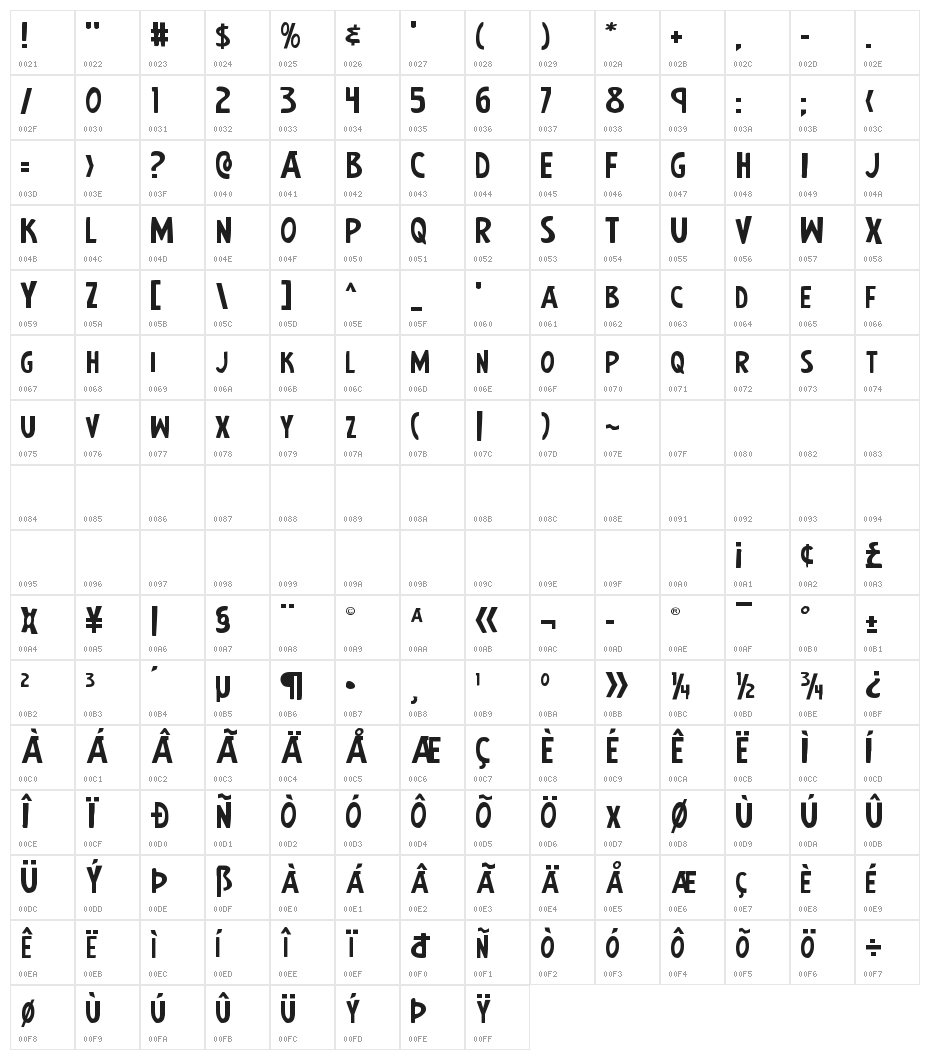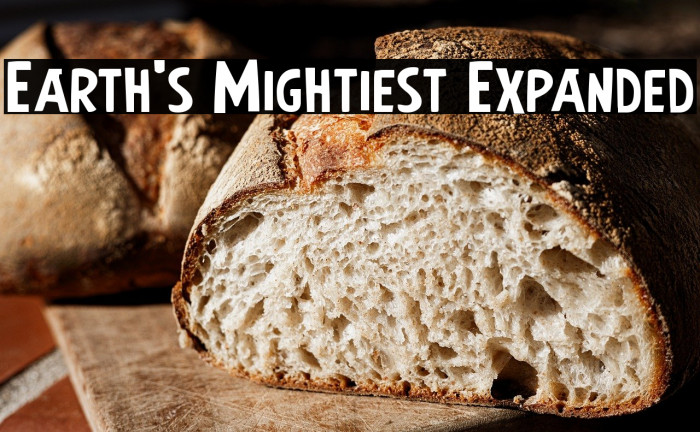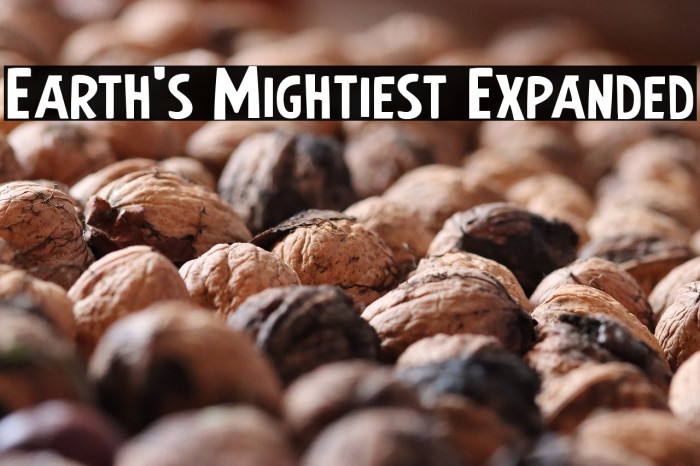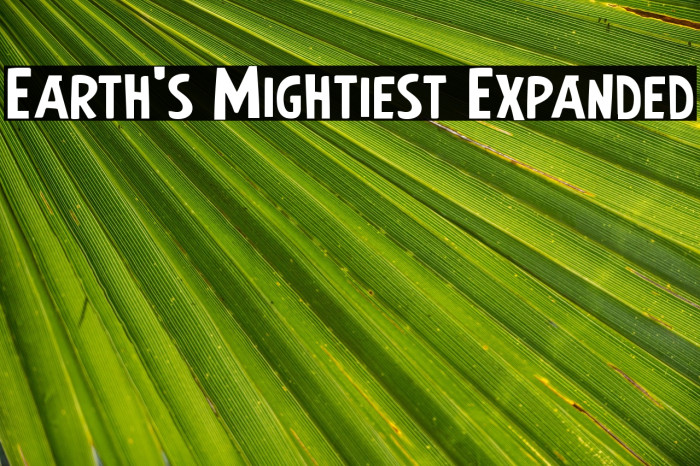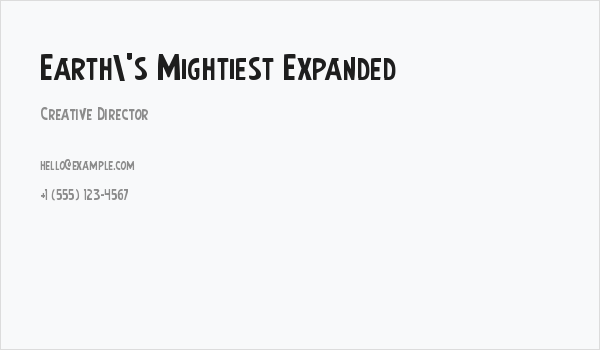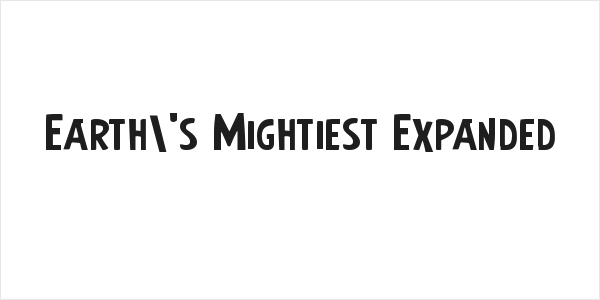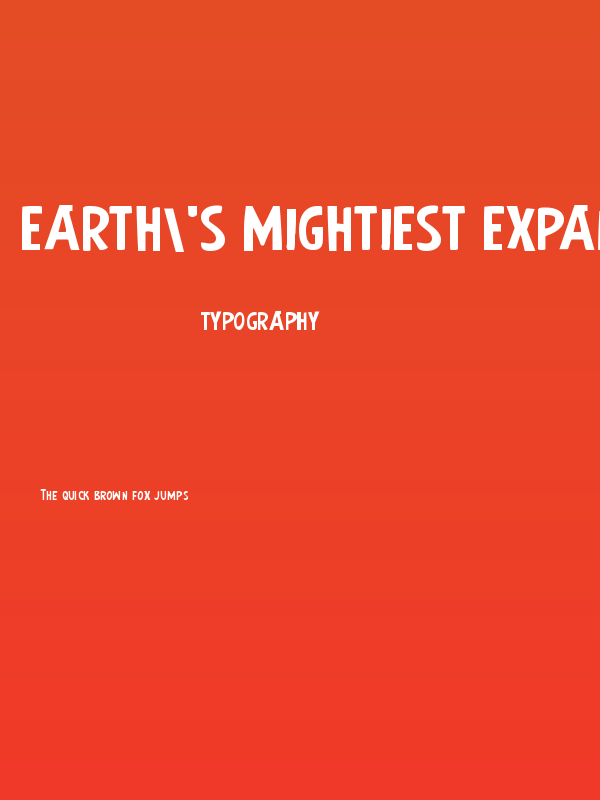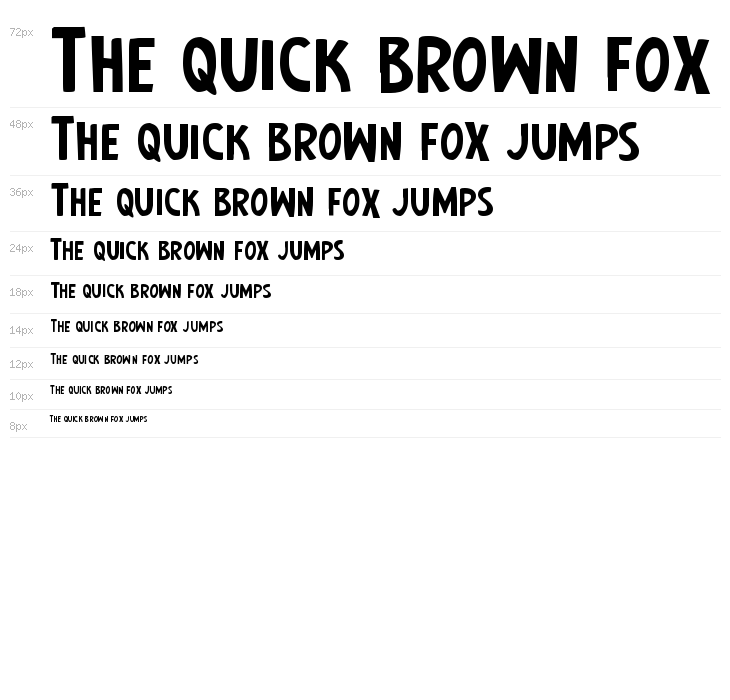
Earth's Mightiest Expanded Font
Earth's Mightiest Expanded Description
This font features bold, playful characters with a slightly condensed appearance. The letters have a hand-drawn quality, giving them a unique and informal style. The uppercase and lowercase letters maintain a consistent height, contributing to a cohesive look. The numbers and special characters are designed to match the playful and bold nature of the alphabet. The overall style is reminiscent of comic book lettering, making it suitable for projects that require a fun and dynamic visual impact.
Overall StylePlayful, Comic
Proposed ProjectsIdeal for comic books, children's books, playful branding, and posters.